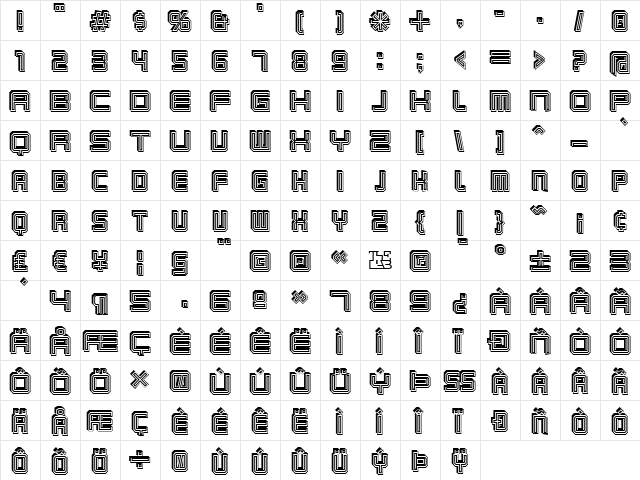
Karnivore Stack Regular
Design Context for Karnivore Stack Typeface
Karnivore Stack is a composed and adaptable typeface that performs quietly and consistently across a wide range of design contexts.